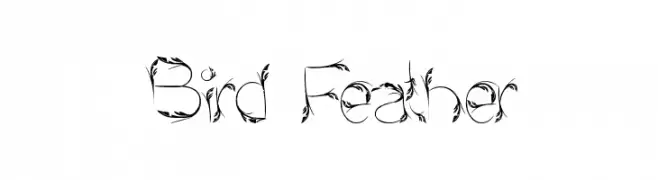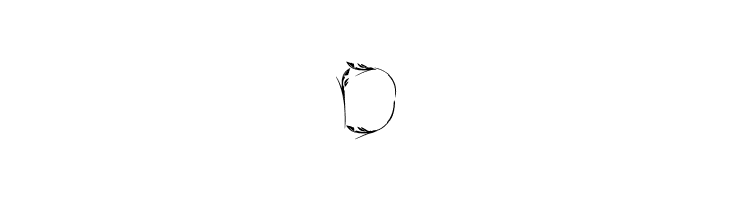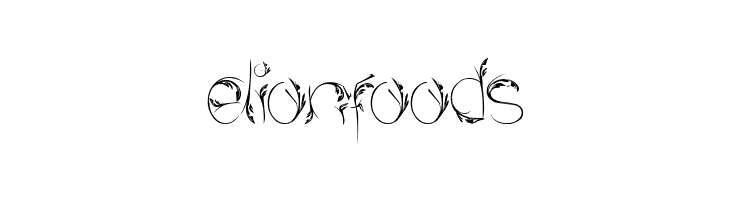
An artistic font with characters designed to resemble bird feathers.
A decorative font with feather-like embellishments for a whimsical, nature-inspired look.